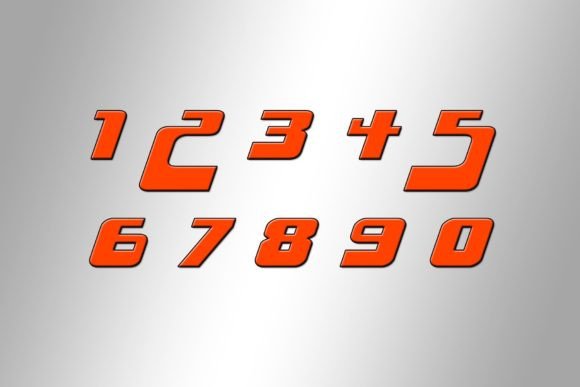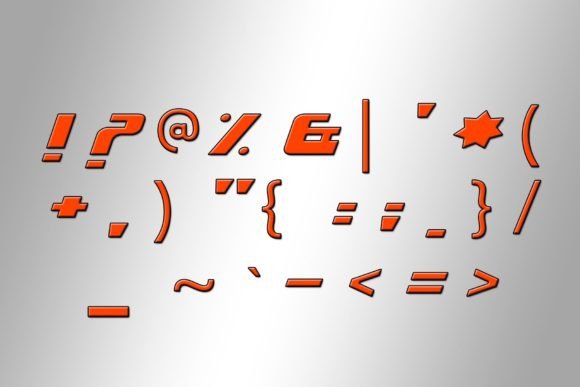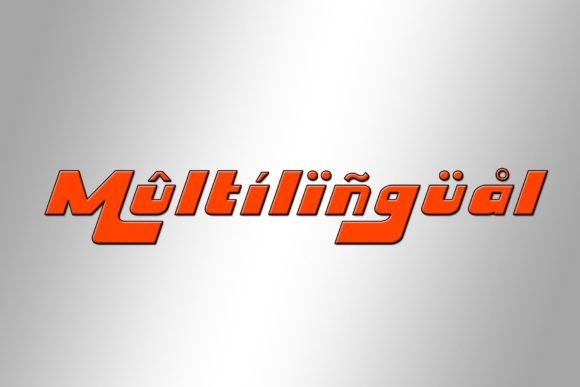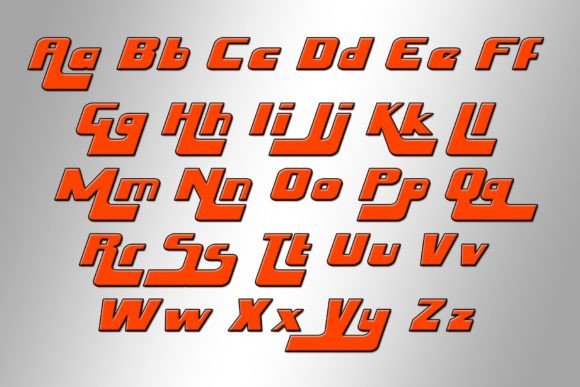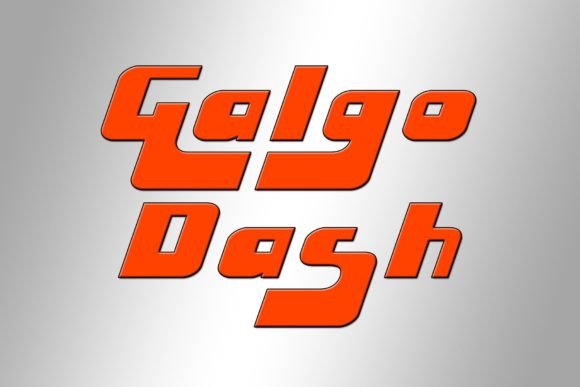
Introducing Galgo Dash Font: The Ultimate Display Font for Creative Designs
Are you tired of using the same old fonts for your designs? Do you want to add a touch of joy and uniqueness to your creative projects? Look no further than Galgo Dash Font! This bold and playful display font is sure to make your designs stand out from the crowd.
The Joy of Galgo Dash Font
Galgo Dash Font is a one-of-a-kind display font that is designed to bring a smile to your face. Its unique and bold design makes it perfect for adding a touch of whimsy to your designs. Whether you’re working on a branding project, a social media graphic, or a craft project, Galgo Dash Font is sure to add a dash of joy and personality to your work.
What Makes Galgo Dash Font So Special?
So, what sets Galgo Dash Font apart from other display fonts on the market? Here are just a few things that make it truly special:
- Unique Design: Galgo Dash Font has a bold and playful design that is unlike anything you’ve seen before. Its unique shape and structure make it perfect for adding a touch of personality to your designs.
- Highly Versatile: Whether you’re working on a digital project or a print project, Galgo Dash Font is highly versatile and can be used in a variety of contexts.
- Easy to Read: Despite its bold and playful design, Galgo Dash Font is surprisingly easy to read, making it perfect for use in headlines, titles, and other applications where readability is key.
Ideas for Using Galgo Dash Font
Galgo Dash Font is incredibly versatile and can be used in a wide range of design projects. Here are just a few ideas to get you started:
- Branding and Logo Design: Use Galgo Dash Font to create a bold and eye-catching logo for your business or brand.
- Social Media Graphics: Add a touch of personality to your social media graphics with Galgo Dash Font.
- Craft Projects: Use Galgo Dash Font to add a personal touch to your craft projects, such as handmade cards, gift tags, and more.
- Party Decorations: Create eye-catching party decorations, such as banners and signs, with Galgo Dash Font.
Tips and Tricks for Getting the Most Out of Galgo Dash Font
Here are just a few tips and tricks for getting the most out of Galgo Dash Font:
- Experiment with Colors: Galgo Dash Font looks great in a wide range of colors, so don’t be afraid to experiment and find the perfect hue for your design.
- Play with Size: Galgo Dash Font can be used at a wide range of sizes, from small and subtle to large and bold.
- Combine with Other Fonts: Galgo Dash Font pairs well with a wide range of other fonts, so feel free to get creative and experiment with different combinations.